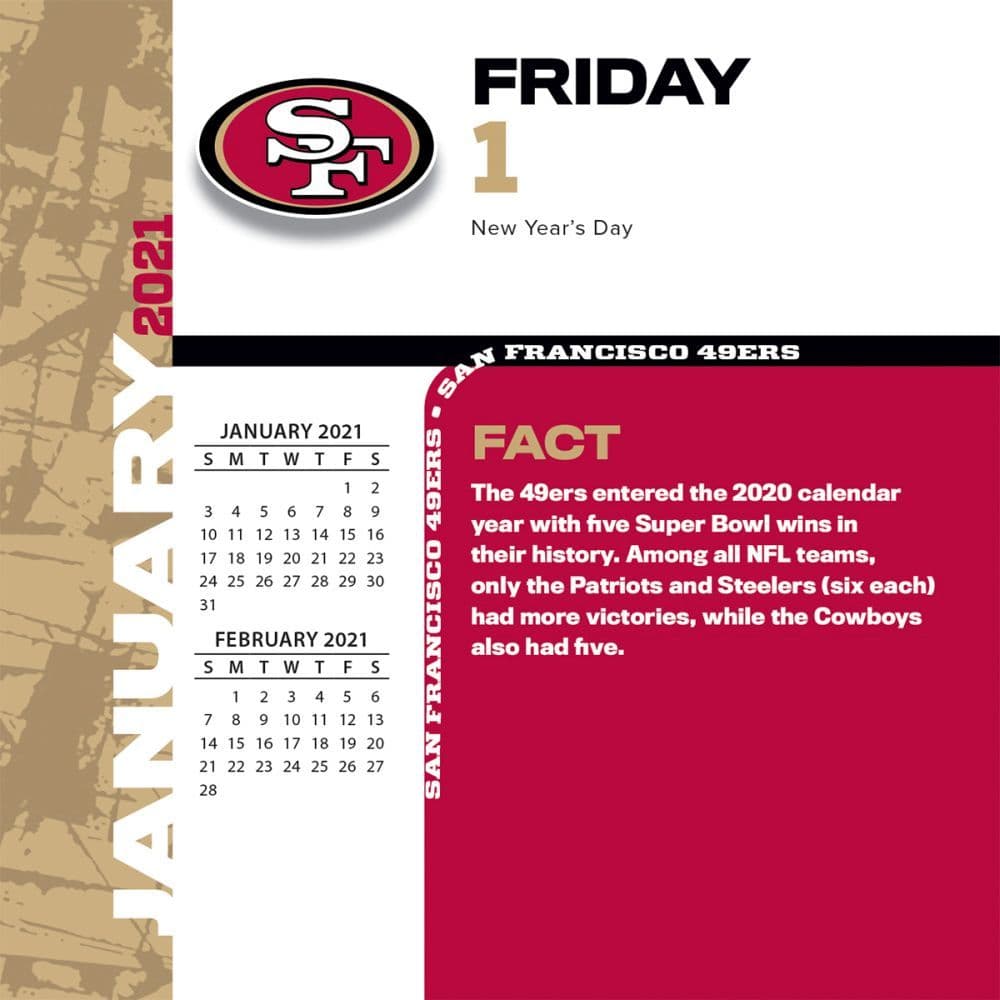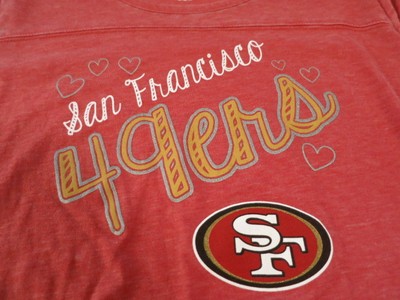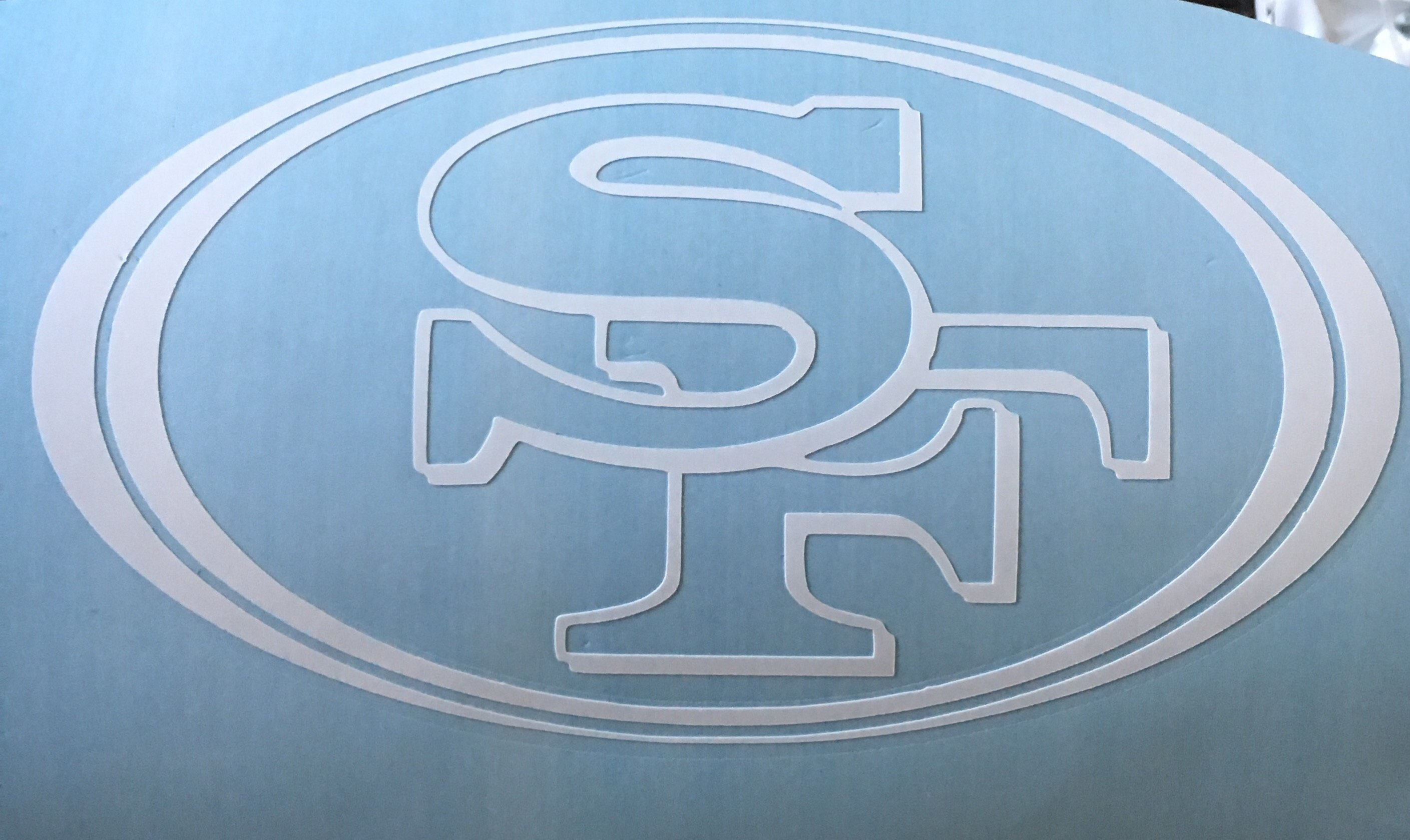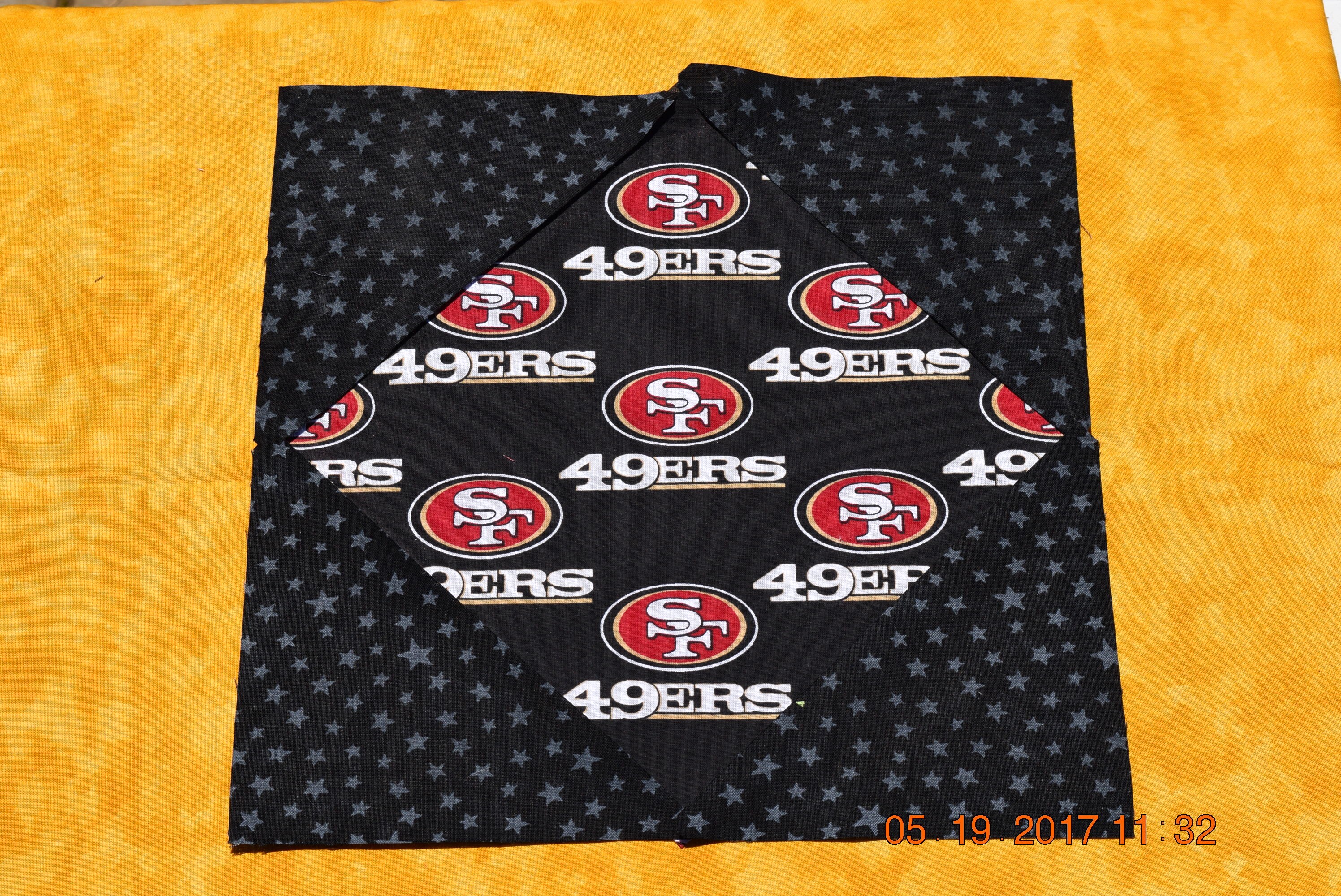
San Francisco 49ers Font Free
San francisco 49ers font free. The closest free font you can get is kameron bold font. 49ers font is the newest product of mr. First seen on dafont.
Size quentin caps by dieter steffmann. Dieter steffmann a very fancy retro font to use combine with ligature and alternate and make your design projects really exciting. 49ers faithful font faithful is the official brand font of the san francisco 49ers based on the iconic sf monogram introduced in the early 1960s and a continuation of the 49ers logo type introduced in mid to late 1980s.
From these few letter forms ben 49ers creative manager and his team endeavored to create the rema. Font by vernon adams. San francisco 49ers logo black and white.